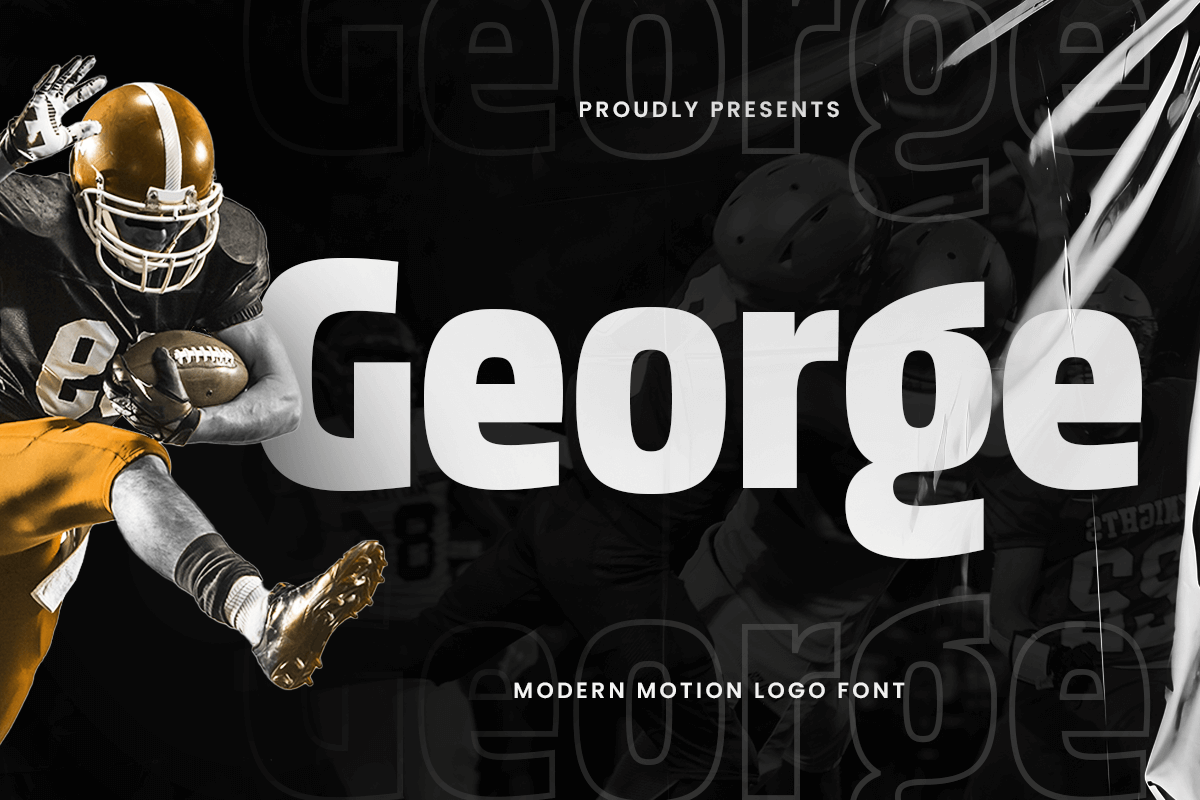
George
-Modern Motion Logo Font
George is a modern motion logo font, meticulously designed for creators seeking a dynamic and sophisticated edge in their projects. Its sleek and bold aesthetic makes it the perfect choice for modern branding, animated logos, sports designs, and high-energy visuals.
Infused with motion-inspired elements, George stands out with its sharp lines and fluid design, evoking a sense of movement and energy. Whether for digital platforms, sports branding, or high-impact headlines, George seamlessly blends modernity and versatility, elevating your designs to new heights.